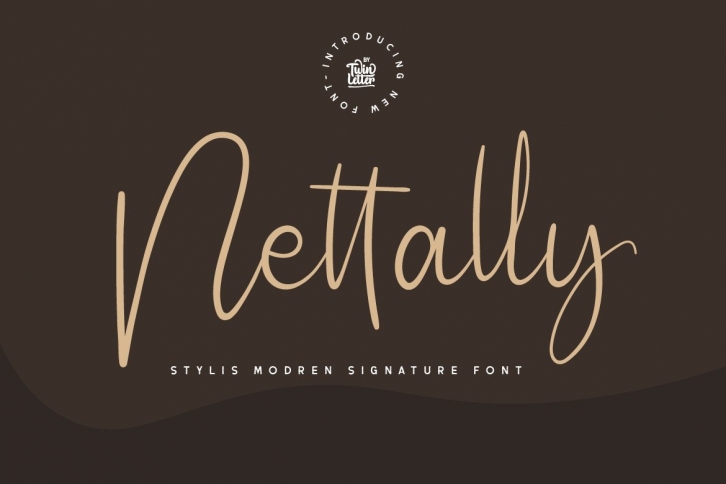
Nettally is a beautiful font that was designed by twinlettertype. It's a great choice for designers and creatives who need such a font. It was released on August 7, 2021 and the file size is 7.97 MB. Nettally may give a more youthful, expressive and casual look to your project. It is a very beautiful, refined, elegant, and high-quality font.